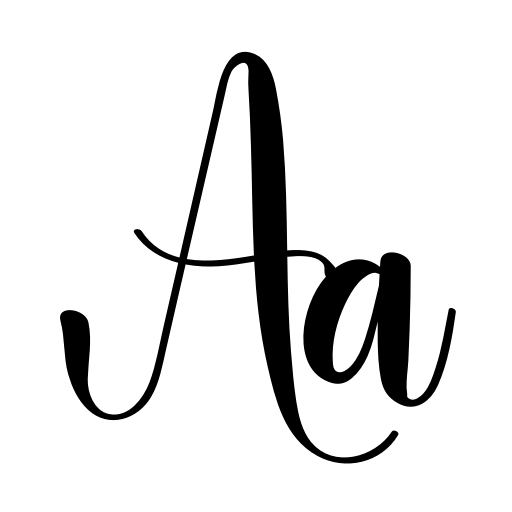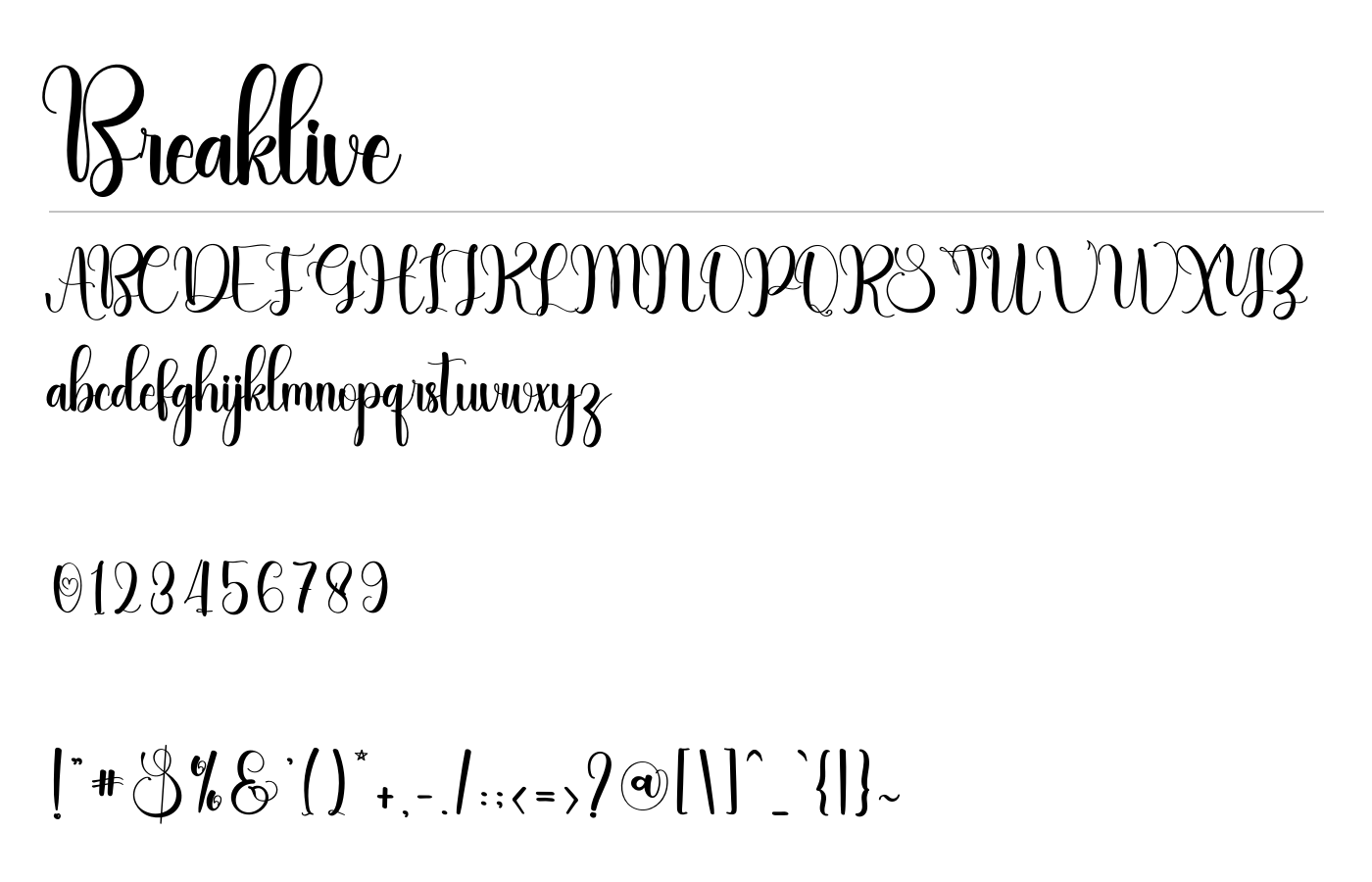
Breaklive is an elegant script font featuring slender, flowing letterforms with high contrast and delicate swirls that lend a refined, sophisticated personality. Its tall x-height and narrow width make it ideal for stylish branding, invitations, and decorative headlines where a graceful, romantic touch is desired. This font shines in creative projects needing a chic and artistic flair, combining readability with ornamental beauty.
Breaklive Font